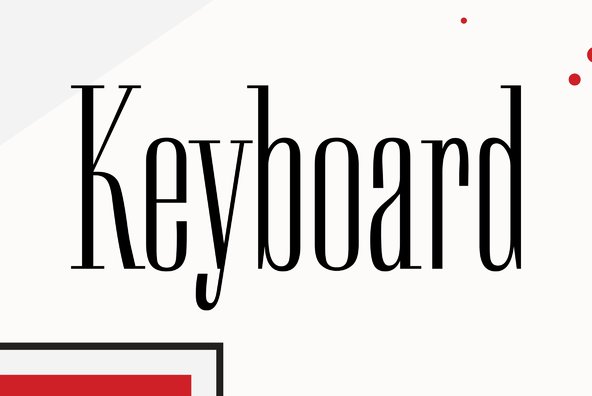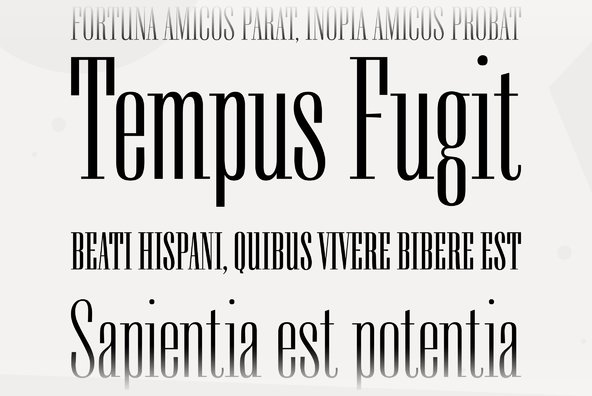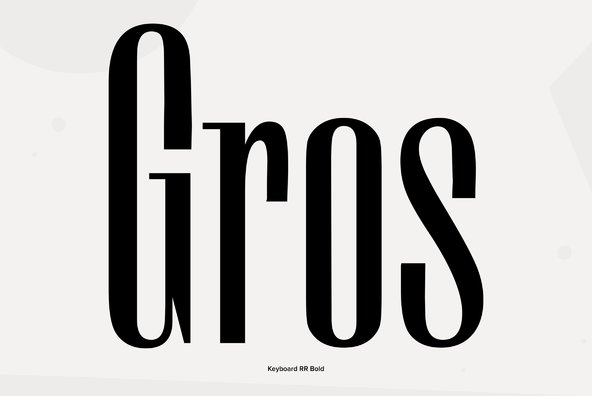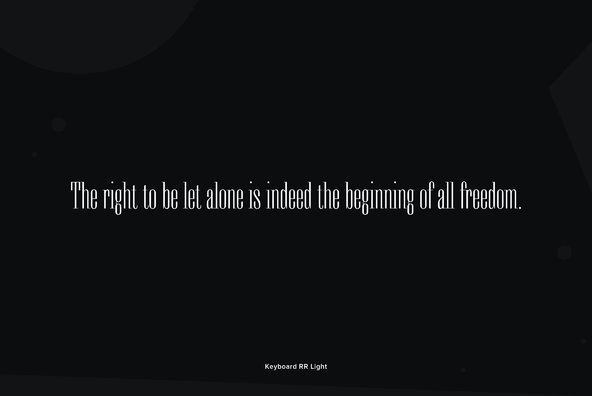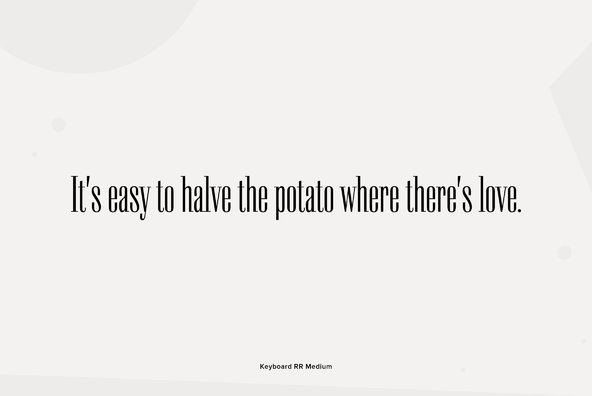
Keyboard was designed by Paul Hickson. This elegant serif release is based on the original design, circa 1951. Copyright International TypeFounders, Inc.